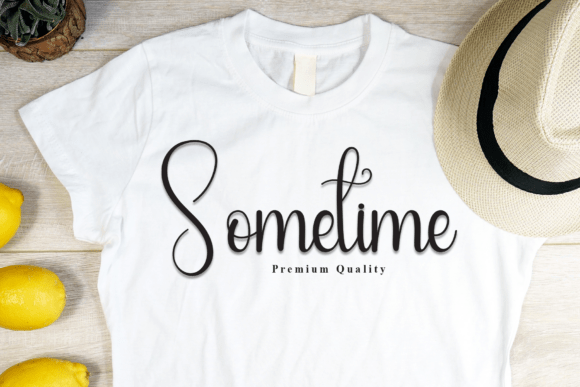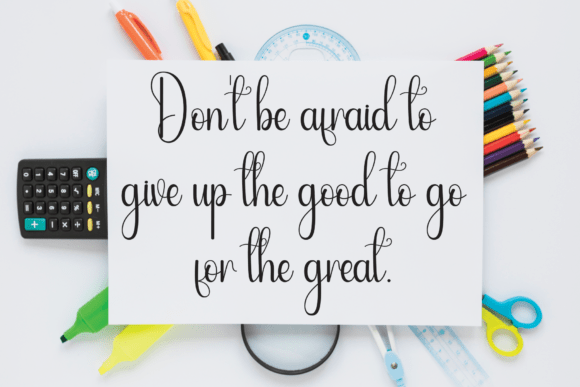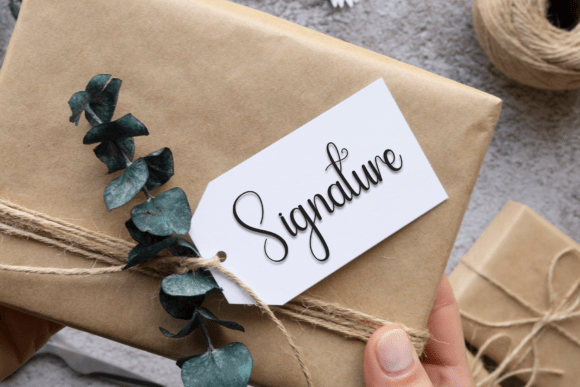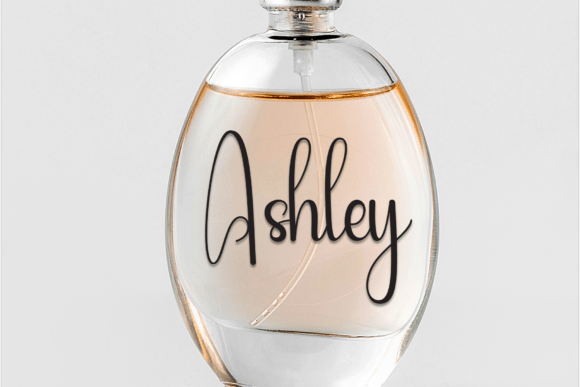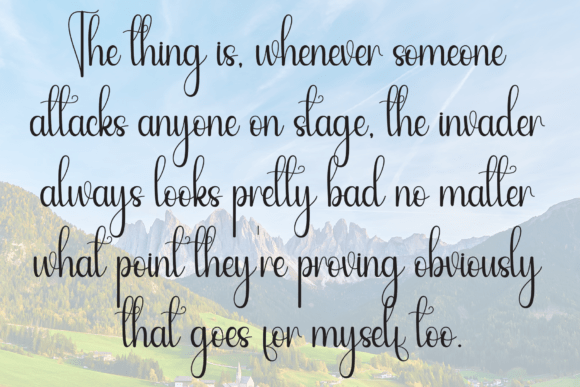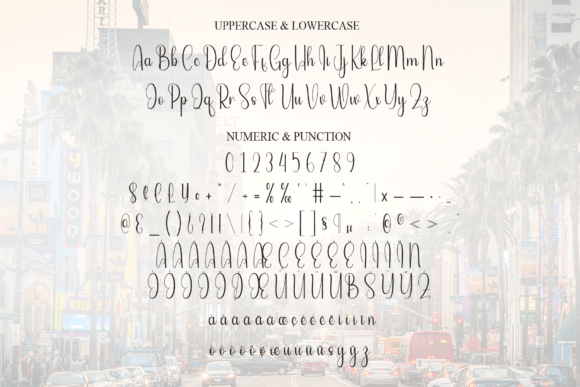
Introducing California Font: Elevate Your Designs with Elegance and Fluidity
In the world of typography, few fonts manage to capture the essence of sophistication and charm as effortlessly as the California Font. This stylish handwritten script font is a masterpiece of modern design, radiating elegance and fluidity in every stroke. Whether you’re a seasoned designer or a crafty DIY enthusiast, California Font is poised to become your go-to typeface for projects that demand a touch of class and personality.
The Essence of California Font
California Font is more than just a collection of letters; it’s an expression of style and creativity. Its smooth, flowing strokes are meticulously crafted to create a natural and sophisticated feel, making it perfect for a wide range of applications. From luxury branding and elegant invitations to creative projects that require a personal touch, this font is designed to impress.
Key Features of California Font
- Elegant and Fluid Design: The font’s smooth strokes and flowing lines give it a dynamic and sophisticated appearance.
- Handwritten Script Style: Adds a personal and artistic touch to any design, making it stand out.
- Versatility: Suitable for various design projects, including branding, invitations, packaging, and more.
- Easy to Read: Despite its elegant nature, the font maintains a high level of readability, making it practical for use in both digital and print media.
Applications of California Font
The versatility of California Font makes it an excellent choice for a multitude of design projects. Here are some of the areas where this font truly shines:
Branding and Logo Design
In the competitive world of branding, standing out is crucial. California Font offers a unique blend of elegance and modernity, making it perfect for creating memorable logos and brand identities. Its sophisticated appearance can elevate your brand’s image, conveying a sense of luxury and professionalism.
Invitations and Event Design
Whether you’re planning a wedding, a corporate event, or a simple get-together, the right invitation sets the tone. California Font, with its elegant and fluid design, is ideal for creating stunning invitations that promise an event to remember.
Creative Projects
For crafters and DIY enthusiasts, California Font can add a touch of sophistication to any creative project. From scrapbooking and card making to crafting personalized gifts, this font can help you achieve a professional and stylish finish.
Why Choose California Font?
With so many fonts available, why choose California Font for your next project? The answer lies in its unique combination of style, versatility, and charm. Here are a few reasons why designers and crafters are falling in love with this typeface:
- Unique Style: California Font offers a fresh and distinctive look that can set your designs apart.
- High Readability: Its clear and flowing strokes ensure that your message is conveyed with clarity and elegance.
- Easy to Use: Designed with user-friendliness in mind, California Font can be easily integrated into various design software.
California Font is a stylish and elegant handwritten script font that brings a touch of sophistication and fluidity to any design. Its versatility, readability, and unique charm make it an excellent choice for designers and crafters looking to elevate their projects. Whether you’re working on a branding campaign, designing invitations, or crafting personalized items, California Font is sure to leave a lasting impression. Discover the elegance and creativity that California Font has to offer and take your designs to the next level.